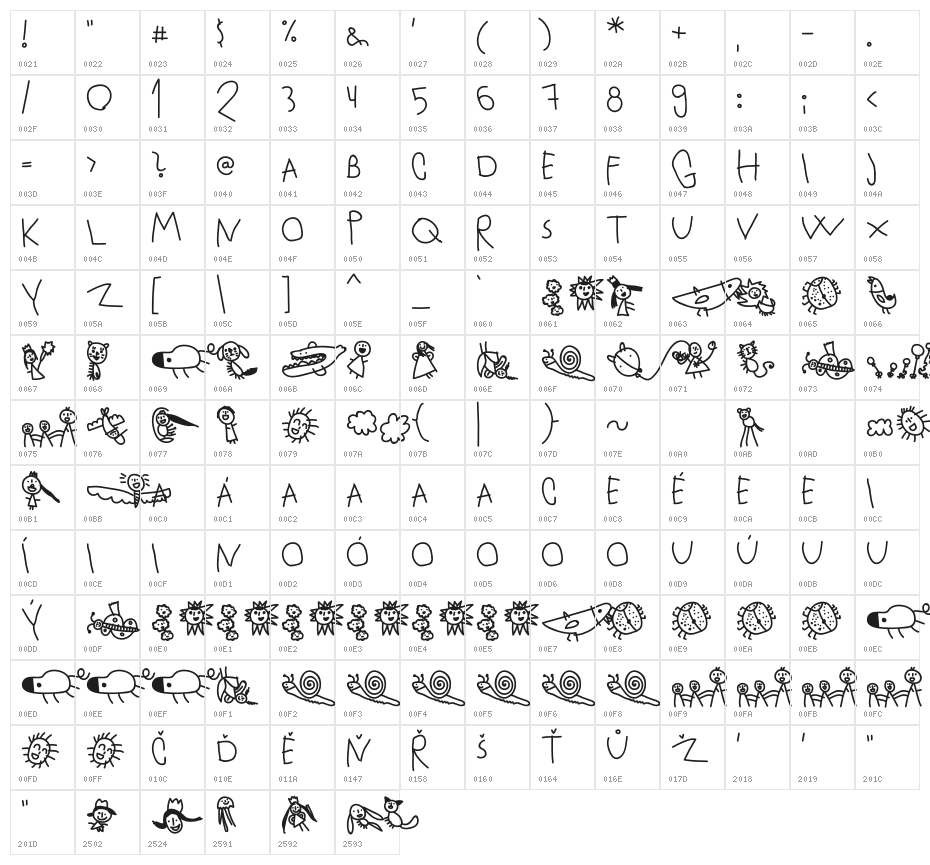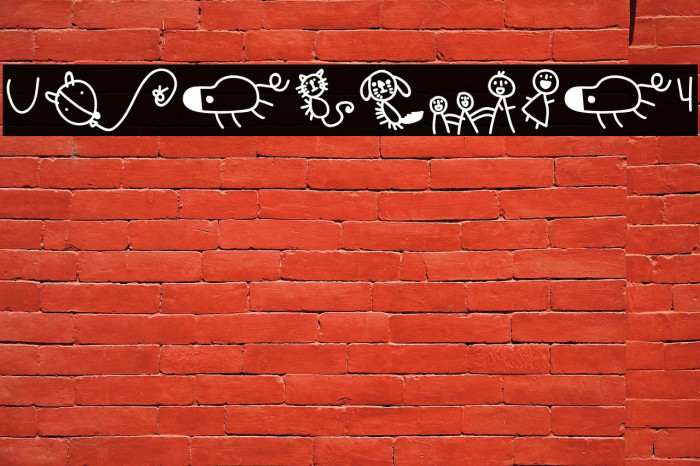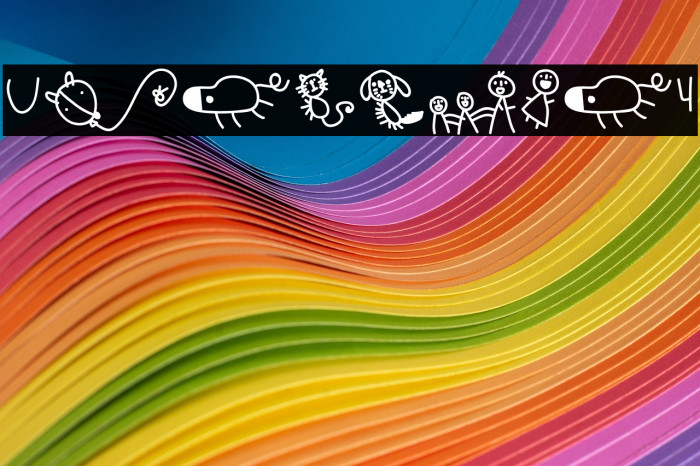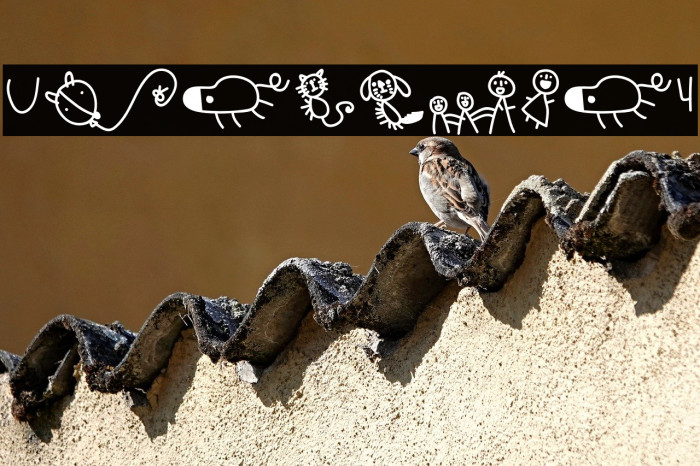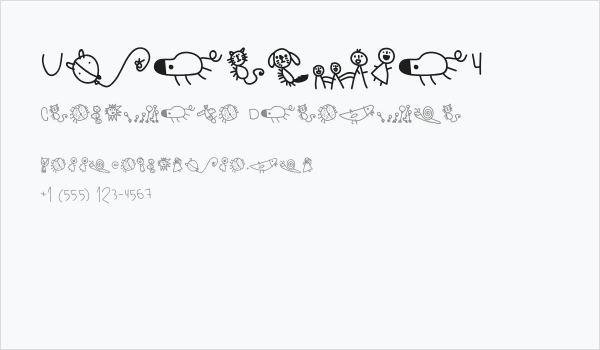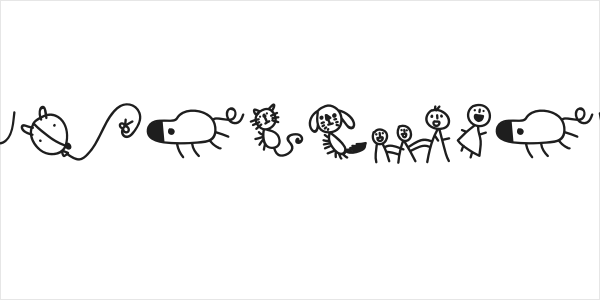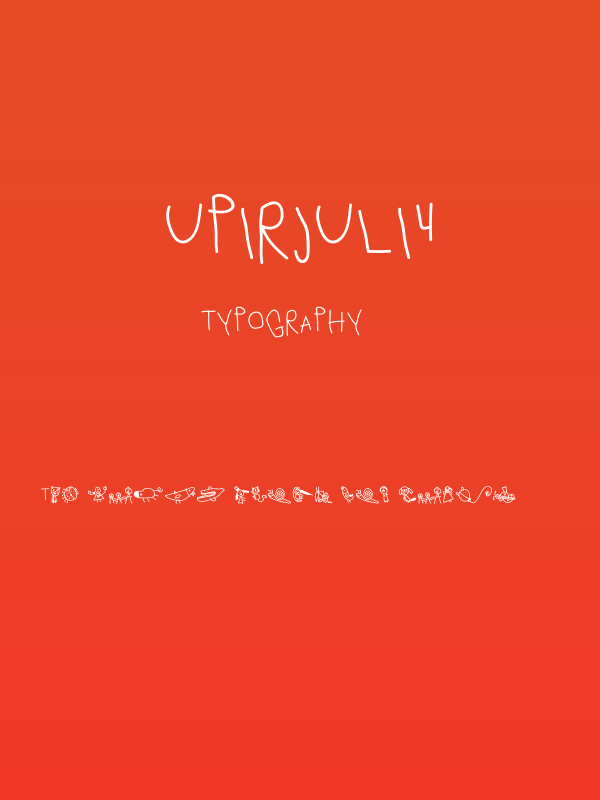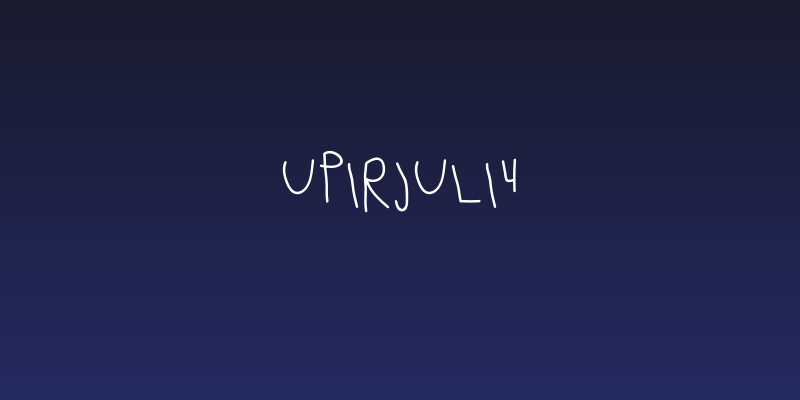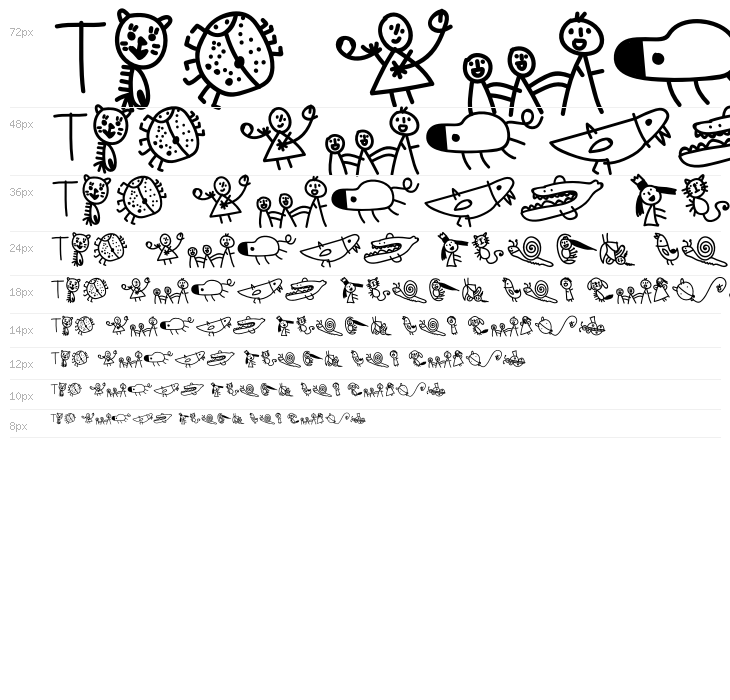
Upirjuli4 Font
Upirjuli4 Description
This playful and whimsical font features a hand-drawn style with irregular, quirky strokes that give it a lively and informal appearance. The uppercase letters are tall and slightly uneven, while the lowercase letters maintain a consistent, yet playful form. The numbers are similarly styled, with a unique and artistic flair. The special characters are creatively designed, adding to the font's overall charm. This font includes delightful doodles and illustrations, enhancing its playful nature and making it ideal for creative projects.
| Use Case | Headlines, Creative projects, Children's materials |
| Proposed Projects | Ideal for children's books, playful branding, greeting cards, and creative posters. |